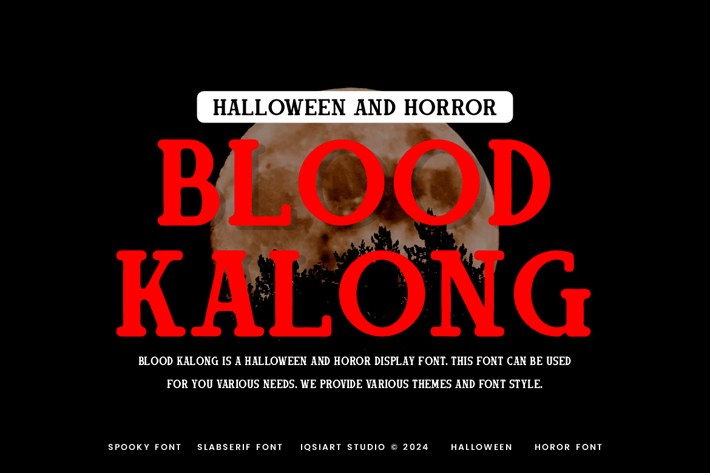
Blood Kalong - Horror & Halloween Font
Blood Kalong Font is a serif and authentic display font.
This font can be used for your various needs.
We provide various themes and font styles.